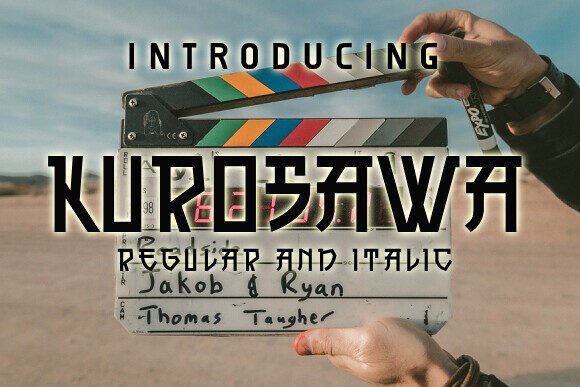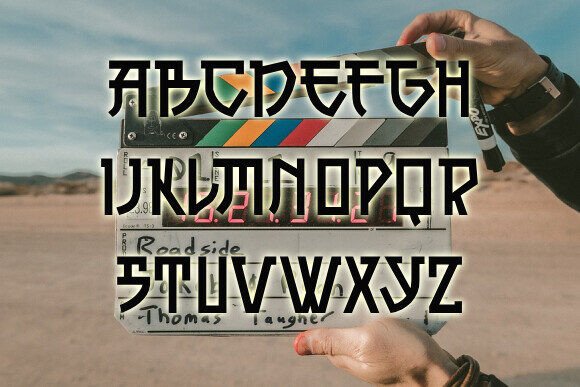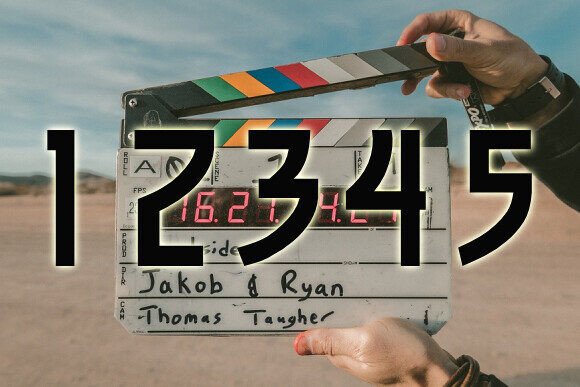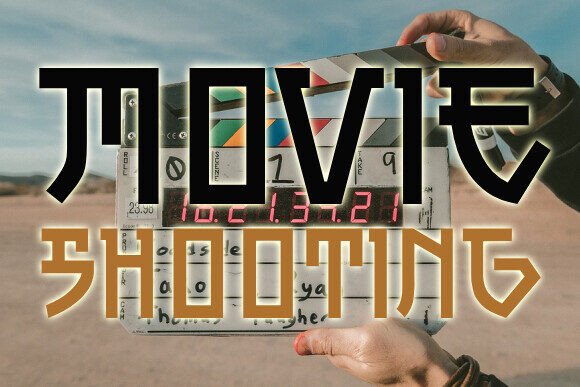
Kurosawa Font: Unique Display Font Inspired by Japanese Typography
About the Kurosawa Font
Add a touch of class to your work with the Kurosawa Font, a truly exceptional typeface. Kurosawa is awesome Japan – Inspired font that will make Your designs look great.
Use this font on posters, flyers and t-shirts.
Kurosawa’s strong, bold strokes make it ideal for headlines, posters, and branding applications where a powerful visual statement is needed. Its impactful nature, however, makes it less suitable for body text or UI elements requiring high readability at smaller sizes. Long paragraphs set in Kurosawa would be visually overwhelming and difficult to read.
The font projects a modern, yet slightly rebellious personality. It works best for brands conveying strength, innovation, or a sense of edgy sophistication. Consider pairing it with a clean sans-serif like Helvetica Neue for contrast and readability in supporting text, or a more delicate script font like Playfair Display for a touch of elegance in logos or secondary elements.
For a more traditional feel, a classic serif such as Garamond could complement Kurosawa’s boldness, providing a sophisticated balance. Avoid pairing it with other overly bold or decorative fonts; the goal is to allow Kurosawa’s unique character to shine.
Kurosawa Font Usage Examples
Kurosawa Font Example